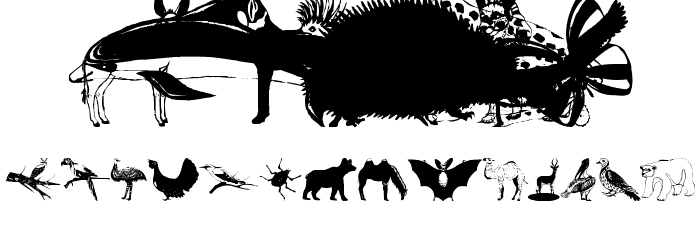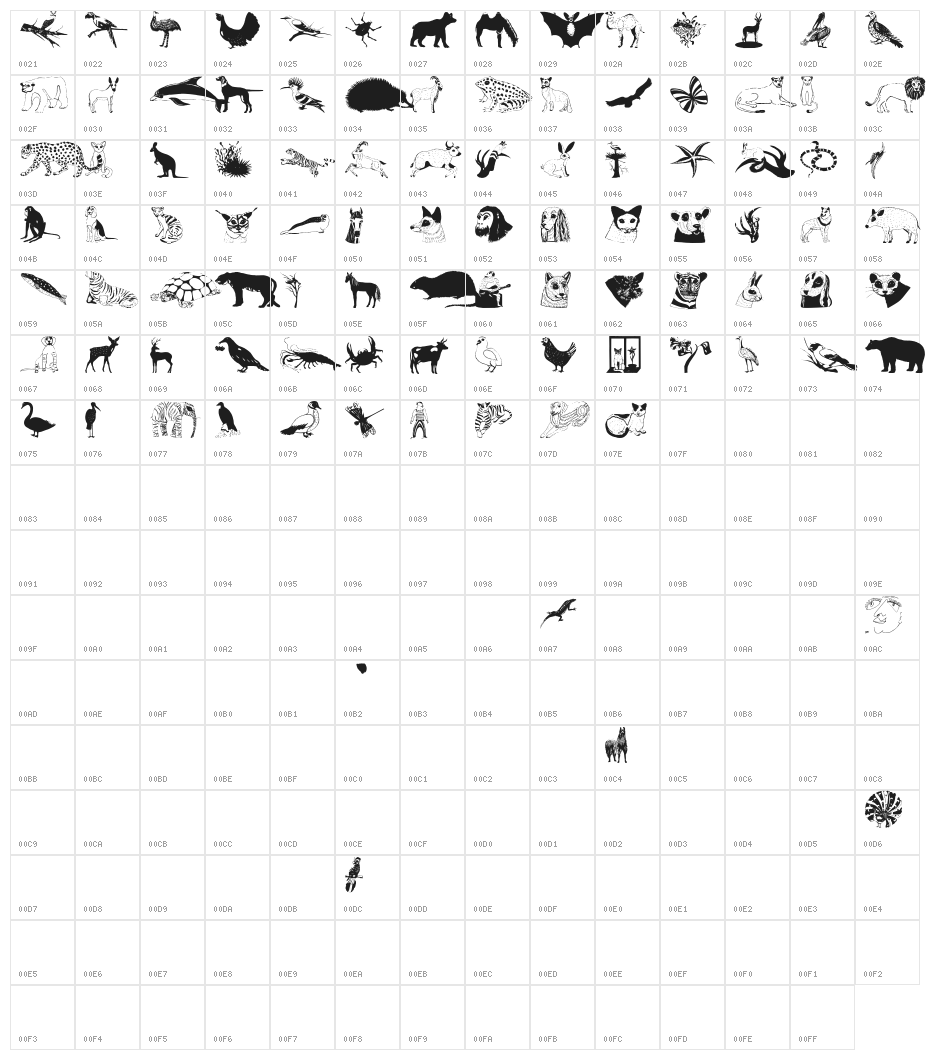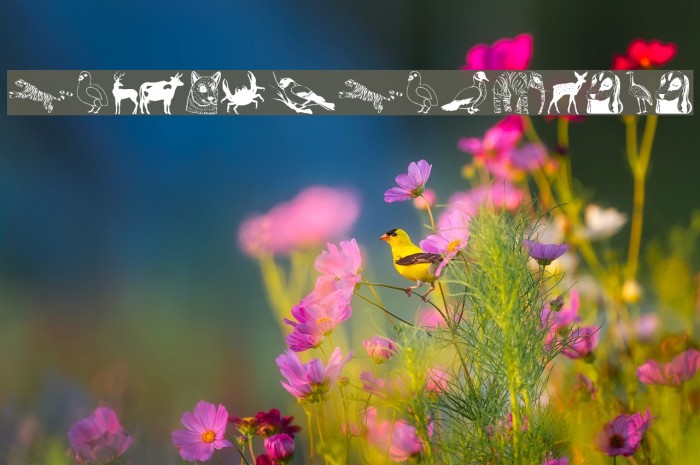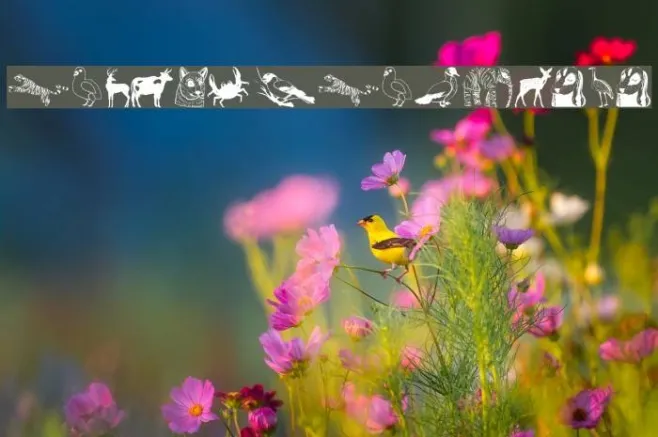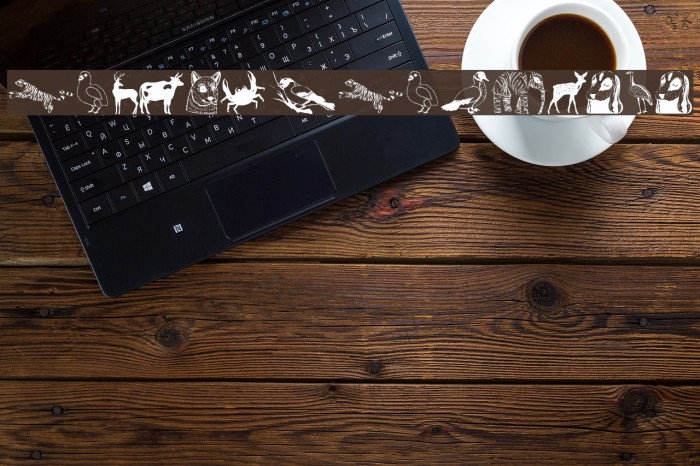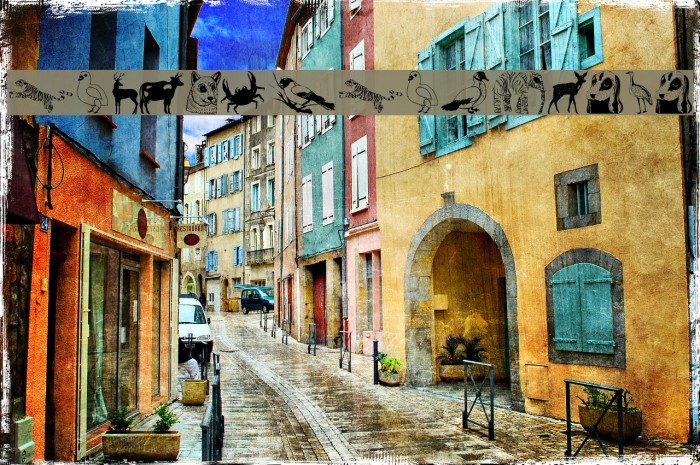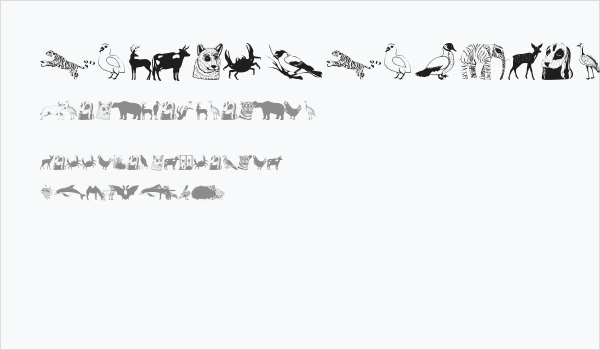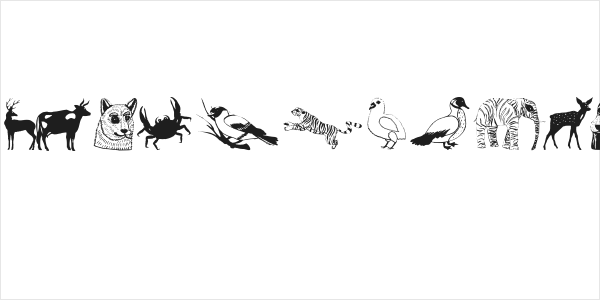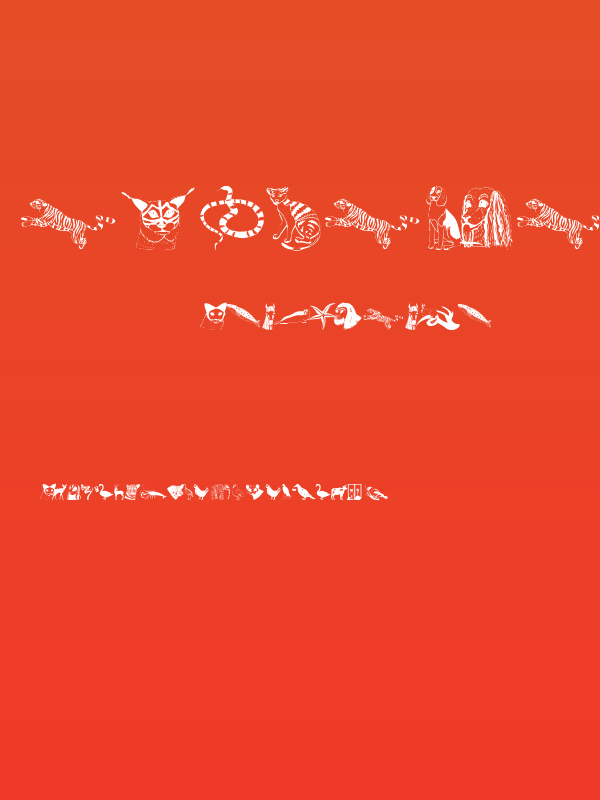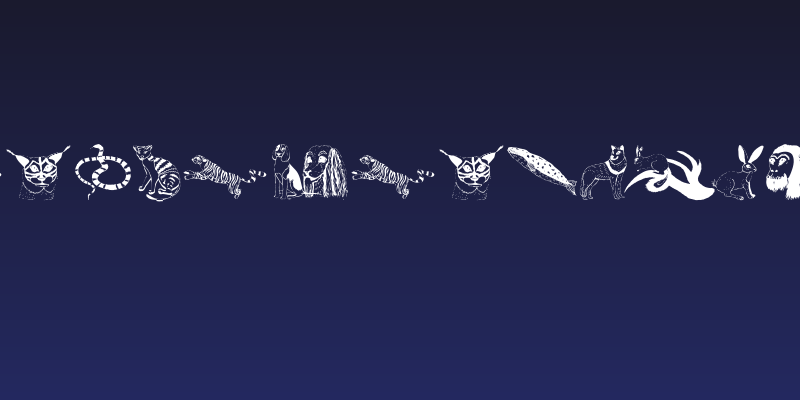
AnimalsAnywhere Font
AnimalsAnywhere Description
A highly decorative and illustrative font where each character is represented by a unique animal or animal-themed drawing, blending detailed line art with playful silhouettes. The glyphs are visually complex and vary significantly in shape and size, prioritizing artistic expression over legibility.
| Overall Style | Decorative, Playful, Illustrative |
| Use Case | Headlines, Posters, Themed graphics, Educational materials |
| Proposed Projects | ChildrenΓ’β¬β’s books, educational materials, posters, animal-themed branding, creative invitations. |